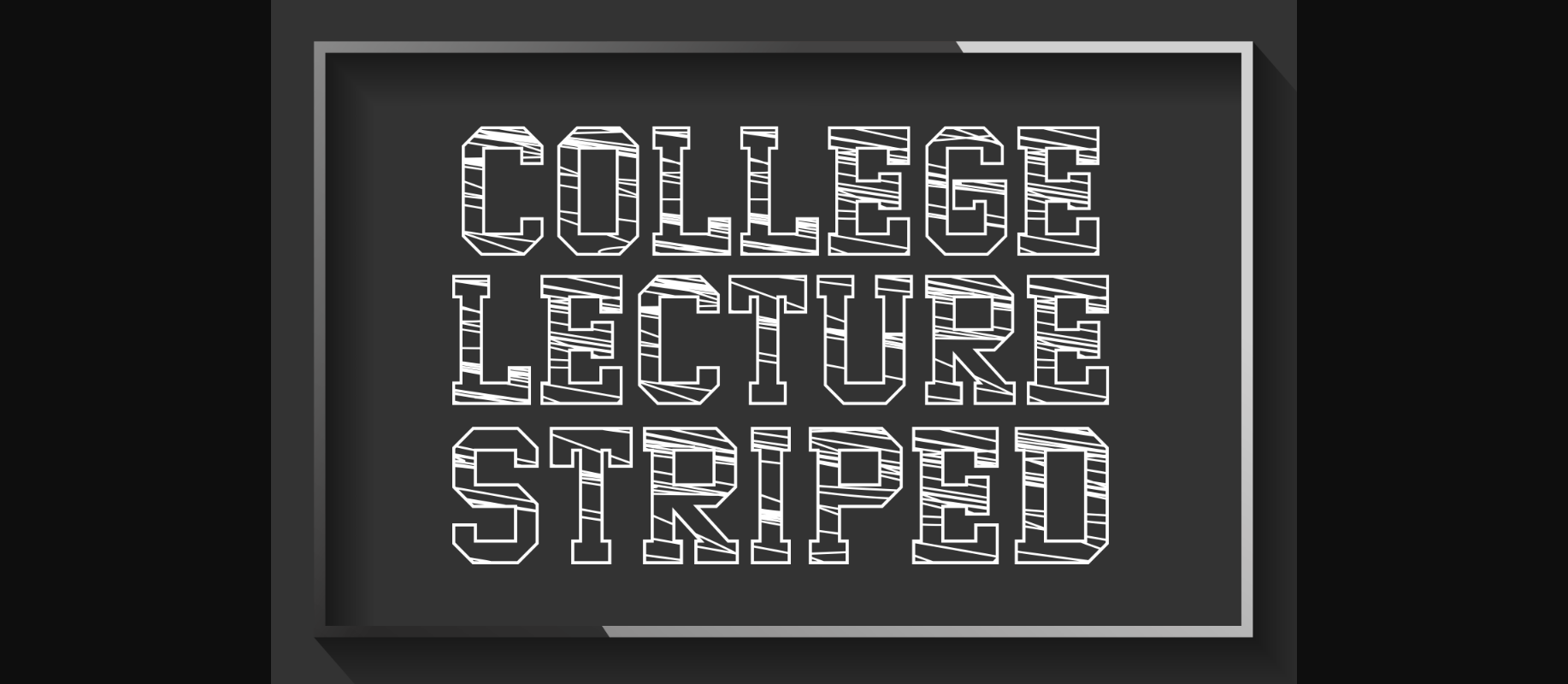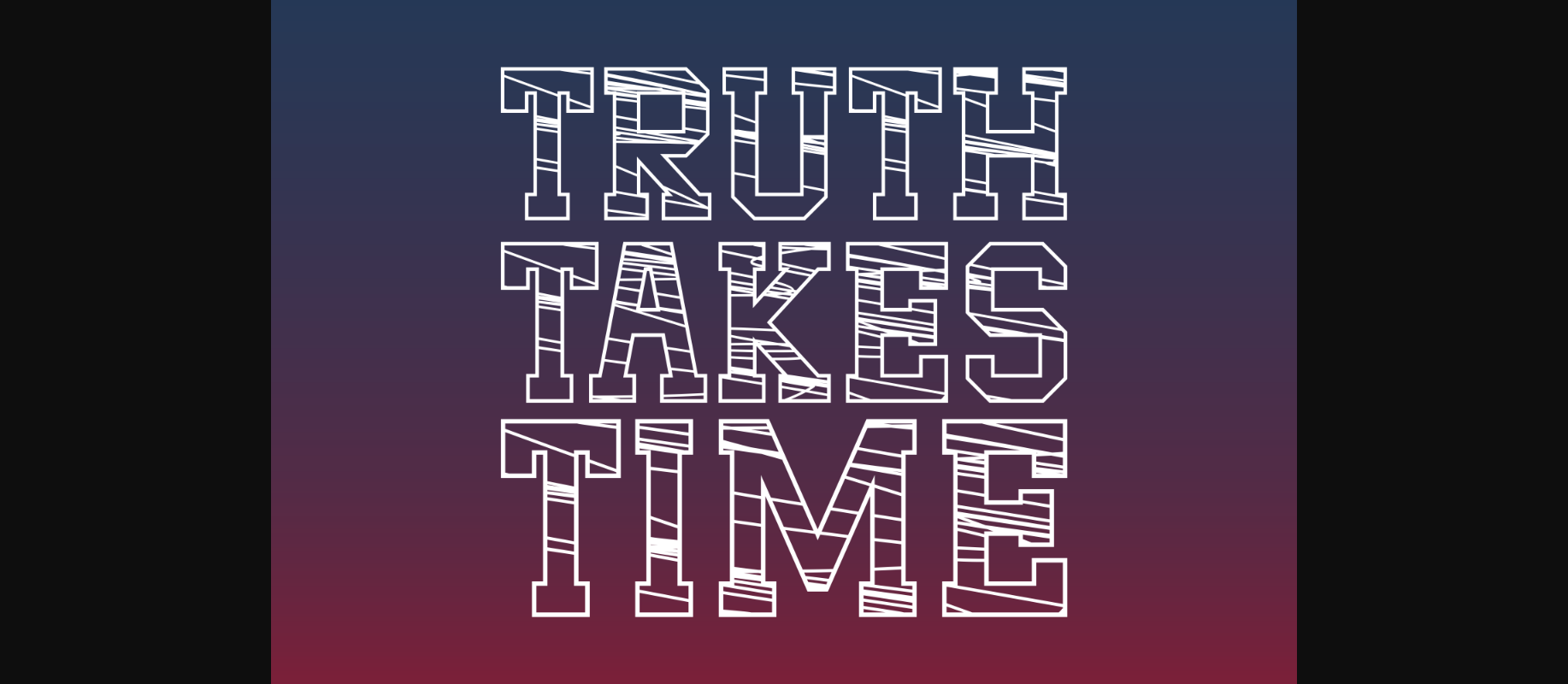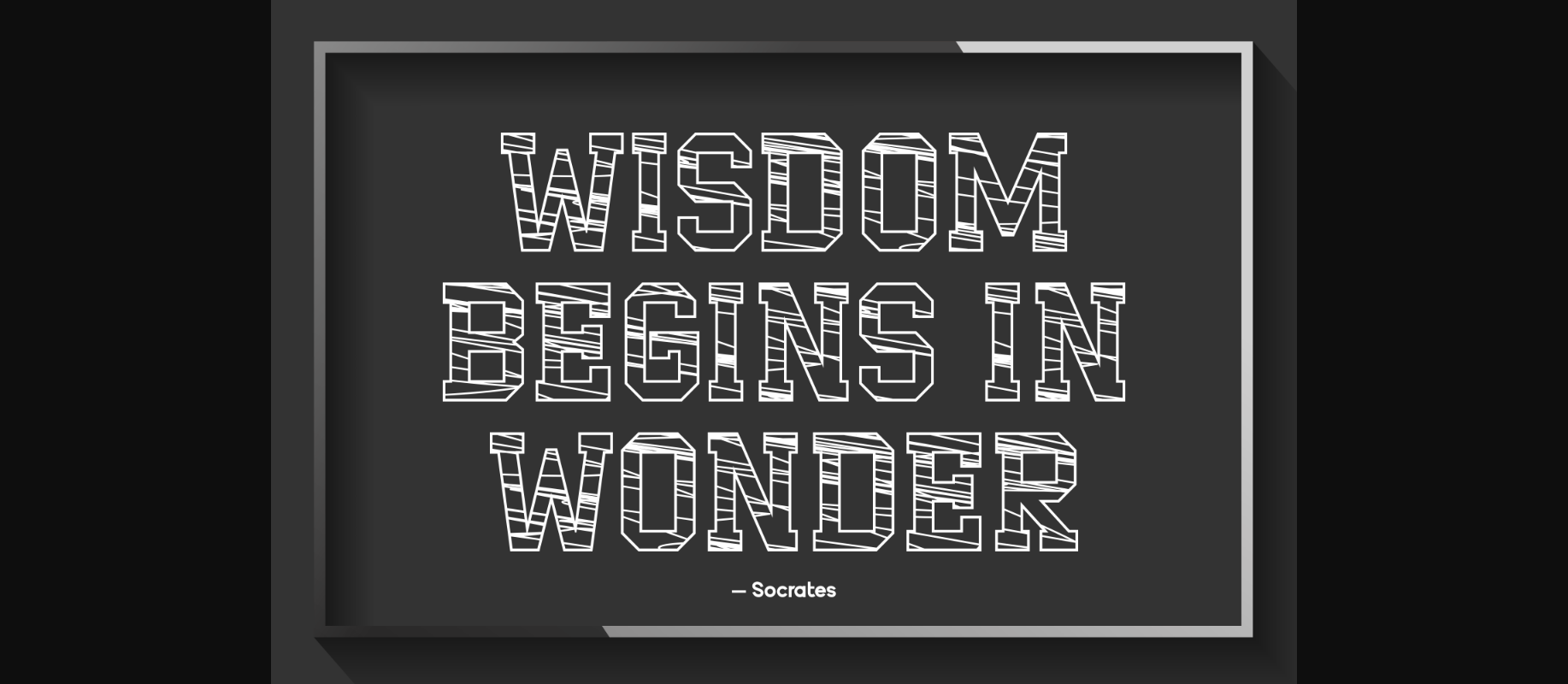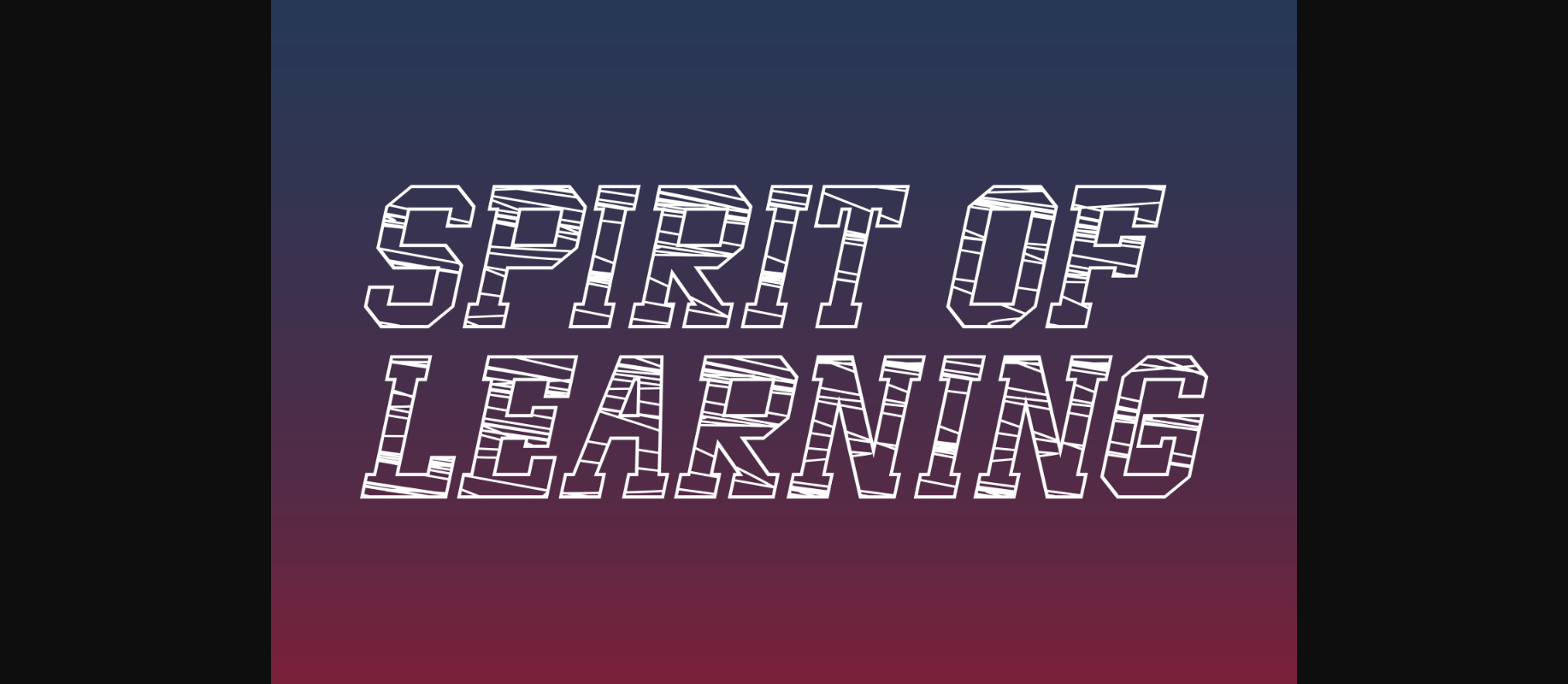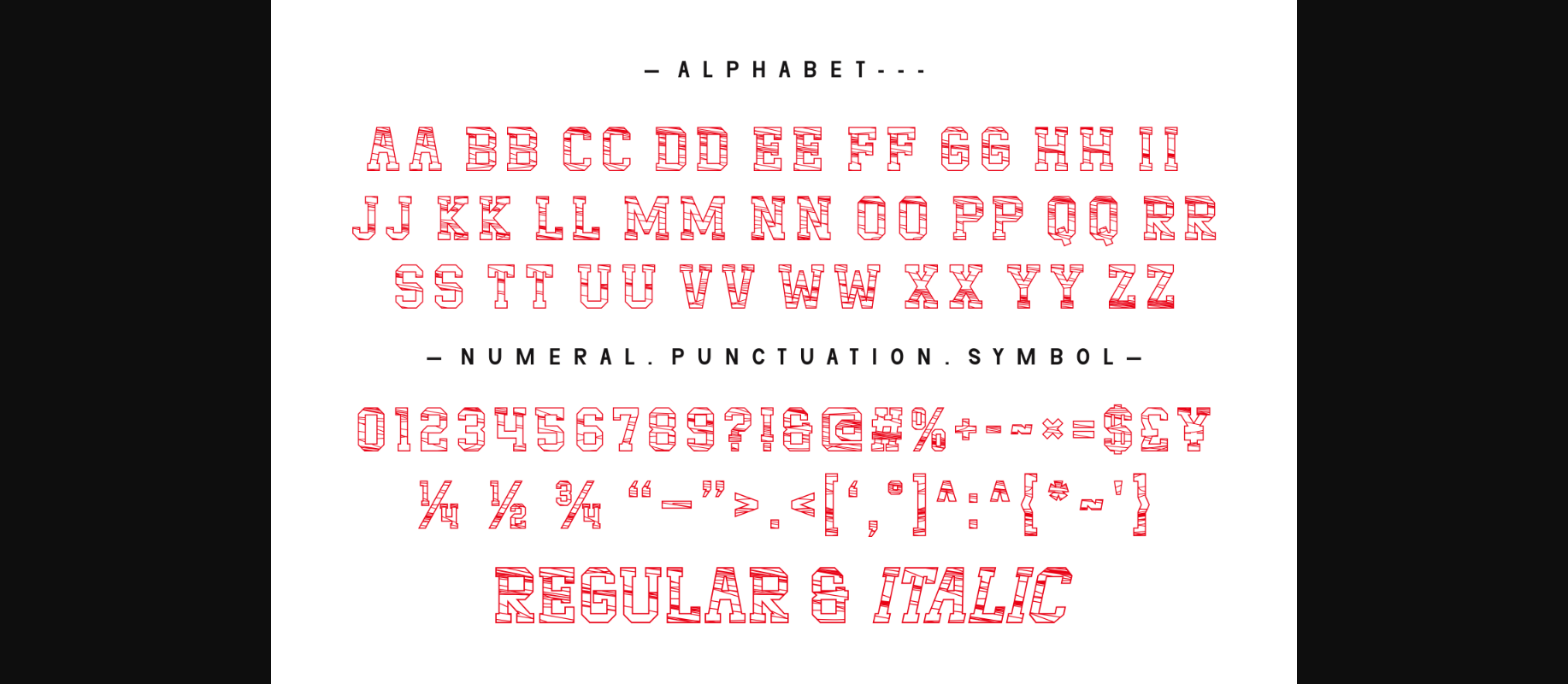
About College Lecture Striped Font
College Lecture Striped is a bold display font that brings a touch of classic academia to your designs. With clean lines and a confident presence, this font adds a scholarly and dynamic element to your text. The distinctive stripes give it a sporty and collegiate vibe, making it ideal for headers, banners, or any project where you want to convey a sense of academic spirit. Elevate your design with the energetic and timeless appeal of College Lecture Striped.